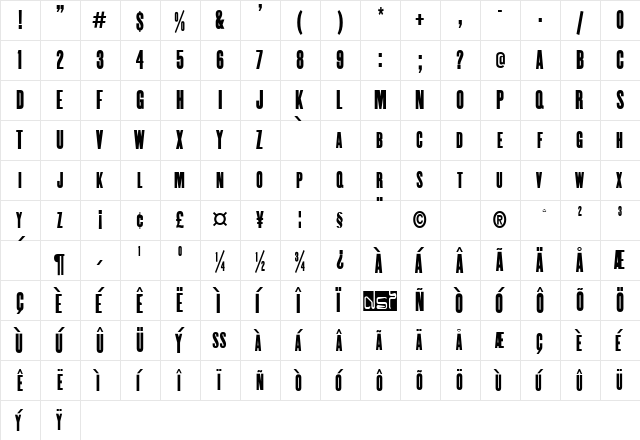
Enge Holzschrift Regular
Design Context for Enge Holzschrift Typeface
Enge Holzschrift offers clean, dependable letterforms without strong stylistic allegiance, making it a practical choice for designers who need flexibility.
Pro Tip: Use Enge Holzschrift in both headline and body roles to test its range before committing to a single application.